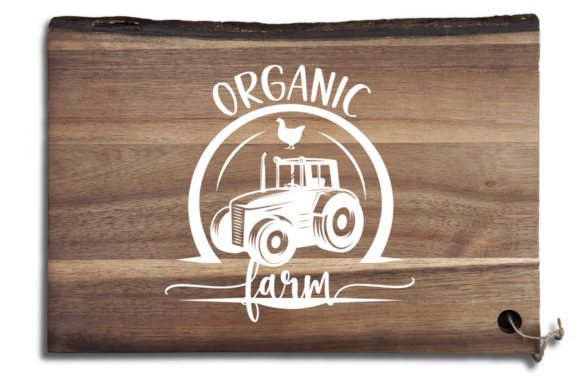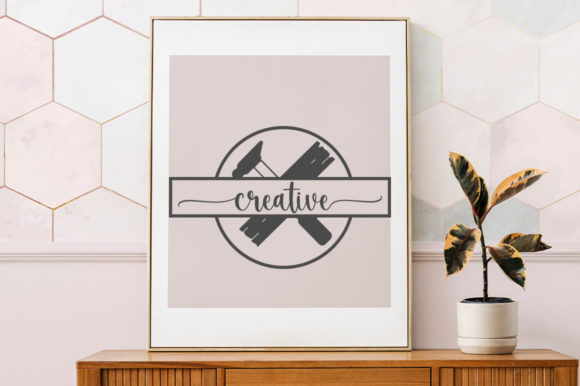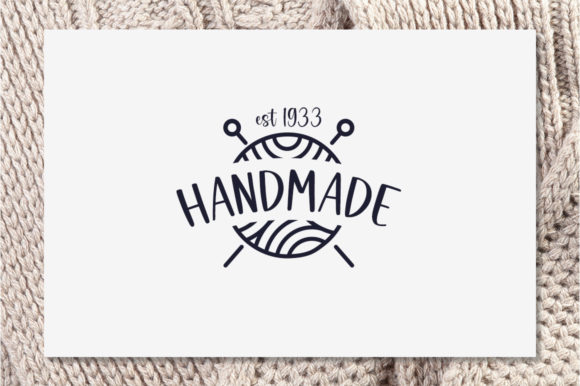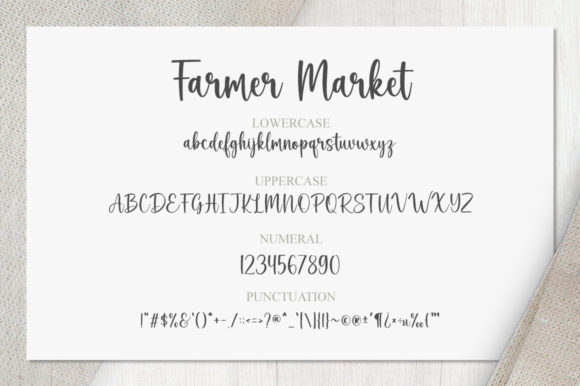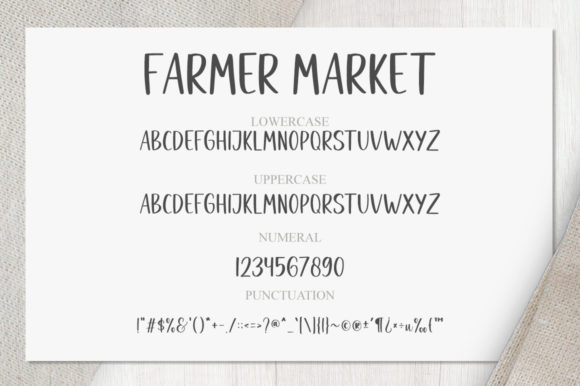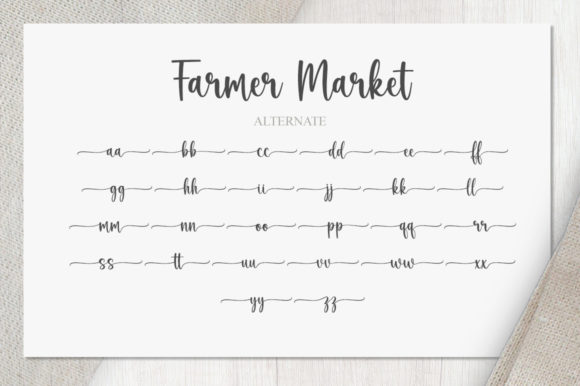
Farmer Market consists of two fonts designed to complement each other perfectly. Together or apart, these fonts are ideal for adding a chic and cheery touch to your crafts. This font is PUA encoded which means you can access all glyphs and swashes with ease!
Farmer Market Font